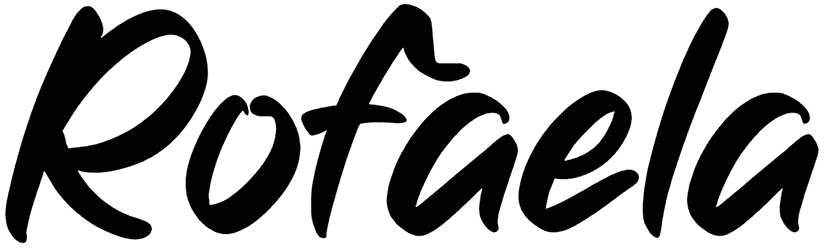
Rofaela Font
Rofaela, a script font with funny letters and a thick structure, works well in projects where you want to make a statement, such as books, billboards, and urban design.
This summer font is perfect for adding a touch of fun to your typography and evoking feelings of calm and happiness in the reader. The Rofaela font, as well as others like it, is included in our collection of script fonts in RB, and its installation is guaranteed to be trouble-free.